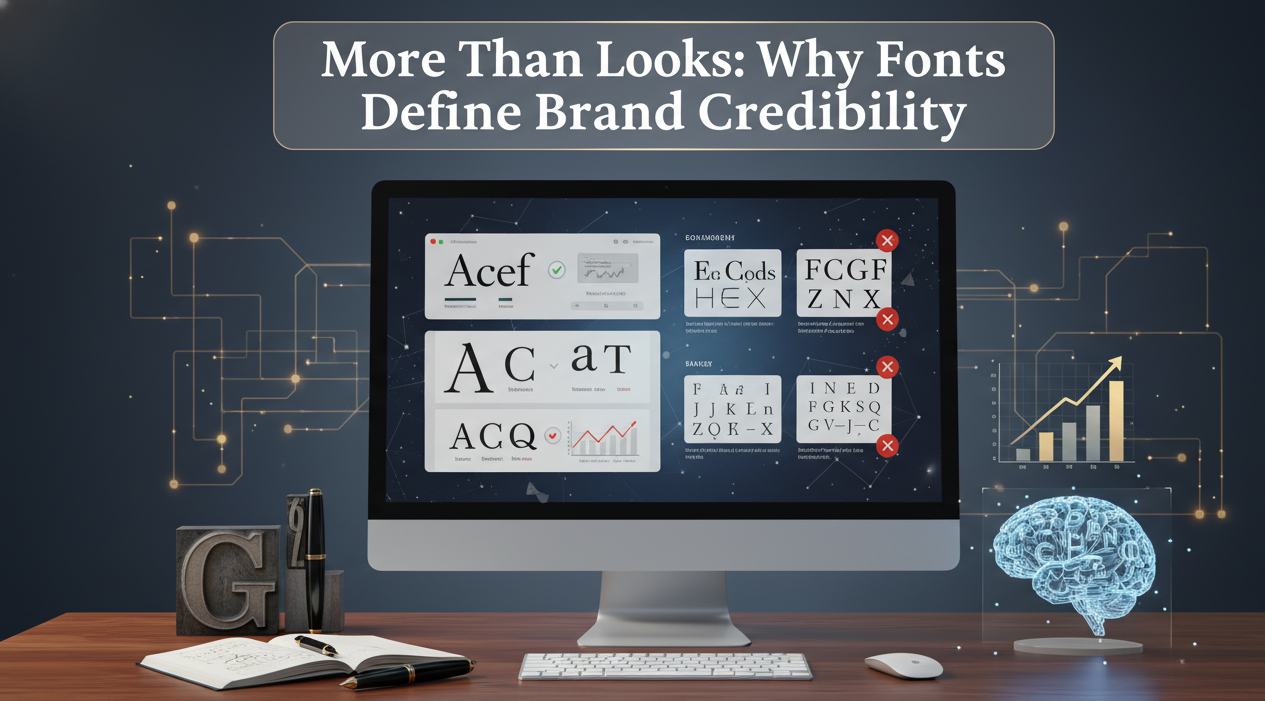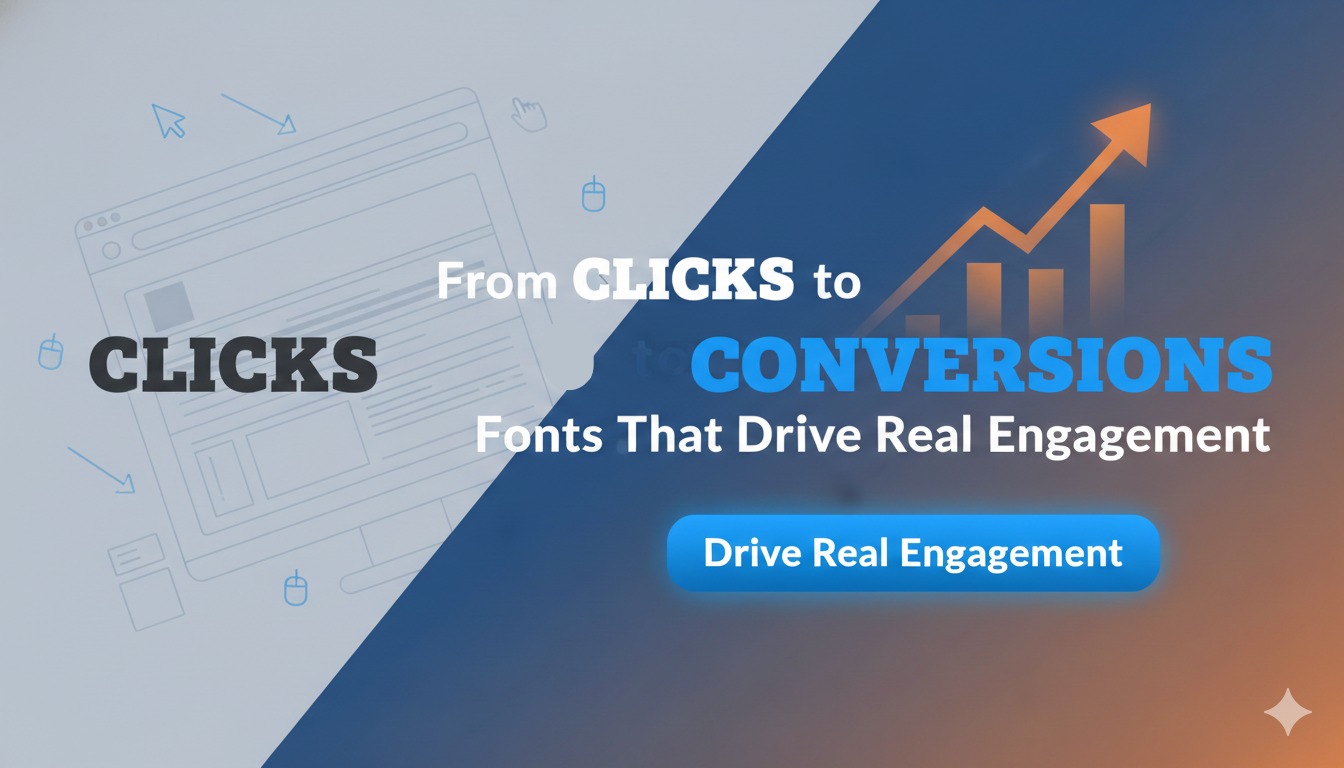
In a crowded digital landscape, attention is easily attracted but difficult to sustain. Many brands focus heavily on traffic generation but overlook one powerful factor that influences whether visitors take action. Typography plays a direct role in engagement, trust, and conversion. At AtoZ Font, we believe that smart font selection transforms ordinary design into high-performing communication.
Why Typography Matters More Than You Think
Fonts are often treated as decorative elements, but they are strategic tools. The typeface you choose shapes how users perceive your brand within seconds. Clean and structured fonts signal professionalism. Inconsistent or hard-to-read fonts create friction and confusion.
When typography enhances readability, users tend to stay longer. Longer engagement builds familiarity. Familiarity builds trust. And trust increases the likelihood of conversion. Strong typography guides the eye smoothly across the page, helping visitors absorb your message without effort.
The Role of Readability in User Engagement
Readable content keeps visitors comfortable. If users struggle to scan headlines or read paragraphs, they leave. Proper spacing, balanced font size, and clear letterforms make a noticeable difference.
Sans-serif fonts are widely preferred for digital platforms because they maintain clarity across screen sizes. If your goal is a better user experience and higher engagement, sans serif font list is a smart starting point. These fonts work exceptionally well for websites, landing pages, mobile interfaces, and call-to-action sections.
Building Modern Brand Identity with Sans Serif Fonts
Sans-serif fonts communicate simplicity and confidence. They are clean, minimal, and adaptable across industries. From technology startups to creative agencies, these fonts create a modern appearance that aligns with digital expectations.
Using a curated sans serif font list helps you test different styles that match your brand personality while maintaining strong readability. When your typography looks clean and structured, visitors subconsciously associate your brand with credibility.
Creating Impact with Slab Serif Fonts
While sans serif fonts support clarity, slab serif fonts deliver strength. Their bold structure and defined strokes make them perfect for headlines and promotional sections. They demand attention without sacrificing readability.
If you want to add authority and personality to your design, consider slab Serif font. These fonts work well for hero sections, banners, and strong brand statements. They create visual hierarchy and help important messages stand out immediately.
Smart Font Pairing for Higher Conversions
The most effective designs combine both styles strategically. Use slab serif fonts for strong headings and impactful messaging. Use sans-serif fonts for body text and supporting content. This contrast creates balance and keeps users visually engaged.
Consistency is equally important. Maintain uniform spacing and sizing throughout your website. Avoid using too many font styles on a single page. Clear structure leads to smoother navigation, and smoother navigation increases conversions.
Conclusion
Moving from clicks to conversions requires more than traffic strategies. It demands intentional design. Typography influences how your message is received, understood, and acted upon.